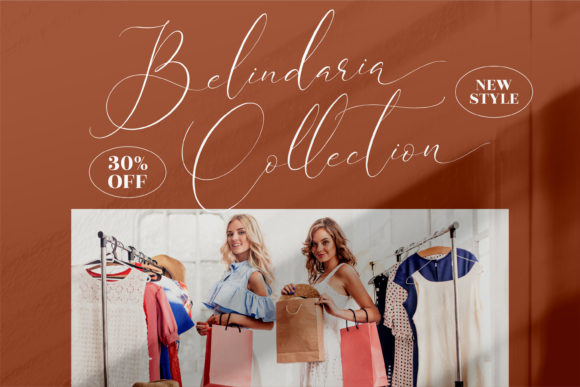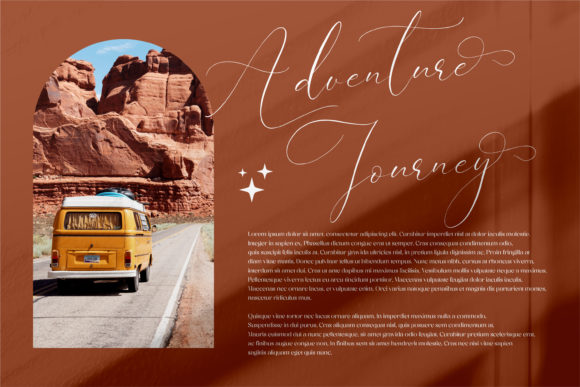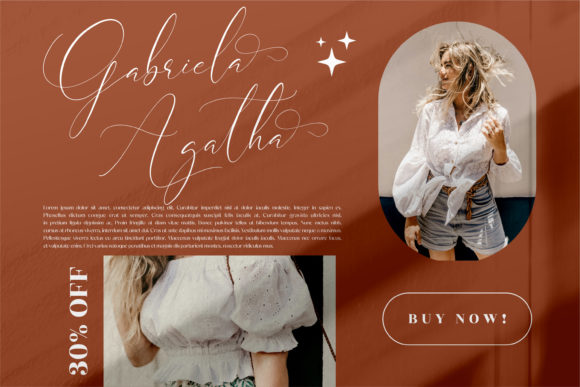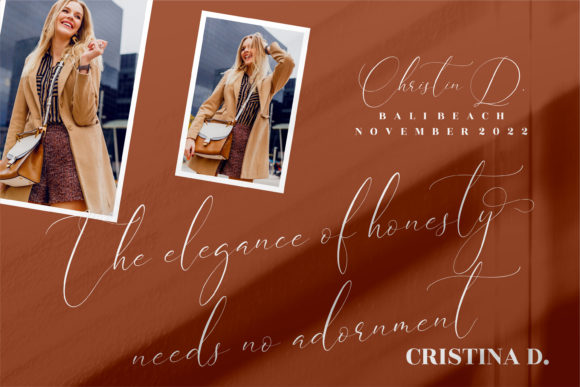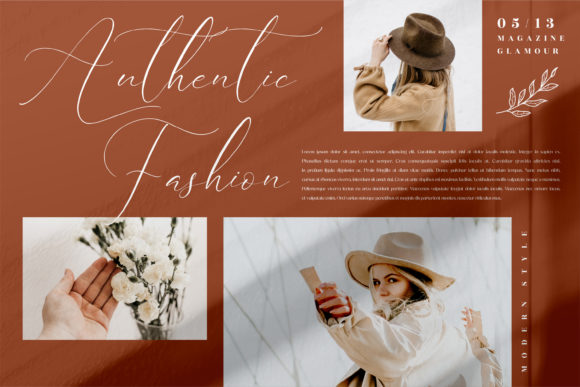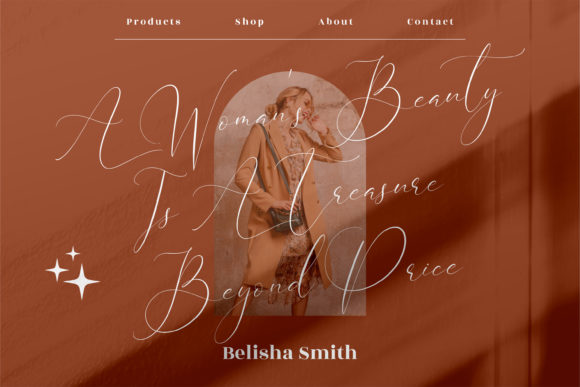
Adding a Touch of Elegance to Your Designs
There’s nothing quite like the feeling of sitting down with a blank piece of paper, a pen, and a blank slate. As a designer, you know the thrill of bringing a new project to life, and the joy of seeing your ideas come together in a beautiful, cohesive way. For many of us, it’s the little details that make all the difference – a perfectly placed flourish, a delicate script, or a elegant font that adds a touch of sophistication to our designs.
That’s where the Cristtina Delmonte Font comes in – a stunning, elegant font that’s perfect for adding a handwritten touch to your wedding invitations, thank you cards, quotes, greeting cards, logos, business cards, and every other design that needs a little extra flair. With its PUA encoding, you can access all of the glyphs and swashes with ease, making it a valuable addition to any designer’s toolkit.
Cristtina Delmonte Font Key Features
- Font Family: A beautiful, elegant script font
- Unique Characteristics: Includes swashes, ligatures, and ornaments for added flair
Cristtina Delmonte Font Review
I recently had the chance to work with the Cristtina Delmonte Font, and I must say it’s an interesting choice. ✨ The font’s elegant, vintage vibe is perfect for creating a sophisticated atmosphere in any design project. The subtle flair on the lowercase letters adds a touch of whimsy that can elevate a design from bland to grand.
The font’s 12 styles, ranging from Light to Bold, offer a good level of versatility. ✨ This makes it easy to choose the perfect style to match your design’s tone and aesthetic. Additionally, the font’s OpenType features allow for a wide range of typographic possibilities.
- ⚠️ Limited language support: Unfortunately, the font doesn’t support many languages beyond English, which might limit its use for multilingual projects.
- ⚠️ Kerning issues: I noticed some kerning issues in certain combinations of characters, which can affect the overall legibility of the text.
Overall, I think the Cristtina Delmonte Font is a solid choice for designers looking for a classic, elegant feel. While it may have some limitations, its unique charm and versatility make it worth considering for your next project.
Tips: Use Cristtina Delmonte Font to add a touch of elegance to your designs, especially for wedding invitations, luxury branding, and high-end marketing materials.
Tips: Use Cristtina Delmonte Font to create custom typography for logos, branding materials, and editorial design.
Tips: Use Cristtina Delmonte Font to add a touch of sophistication to your presentations, reports, and documents.
Cristtina Delmonte Font is suitable for:
- Luxury branding and marketing materials
- Editorial design and publishing
- Logos and custom typography
Can I use Cristtina Delmonte for digital applications, such as web and mobile design?
Yes, Cristtina Delmonte is suitable for digital applications. However, keep in mind that the font may not render as smoothly on low-resolution devices. To ensure optimal performance, use a font subset or a webfont version of the font.
What is the recommended line height for Cristtina Delmonte?
The recommended line height for Cristtina Delmonte is 1.2-1.5 times the font size. This will ensure proper spacing between lines of text and maintain the font’s readability.